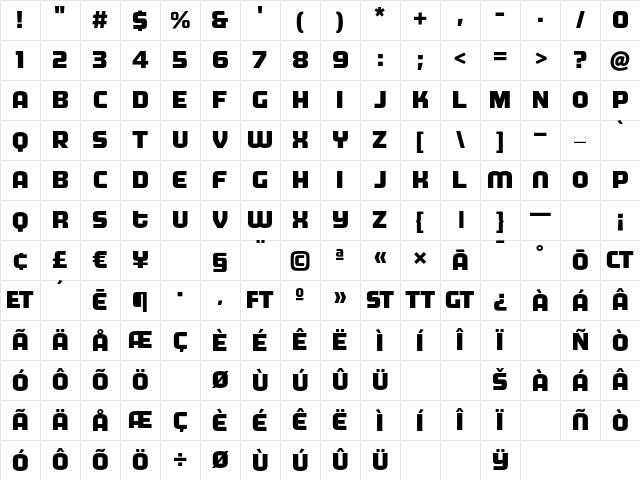
MorganBig Extrabold
Style: Extrabold
Design Context for MorganBig
MorganBig is a composed and adaptable typeface that performs quietly and consistently across a wide range of design contexts. Its bold stroke weight gives it real presence on the page.